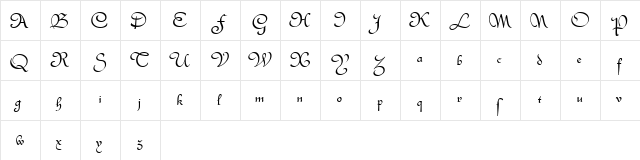
LettreCivilitdeGrajon Regular
Design Context for LettreCivilitdeGrajon Typeface
LettreCivilitdeGrajon is a composed and adaptable typeface that performs quietly and consistently across a wide range of design contexts.